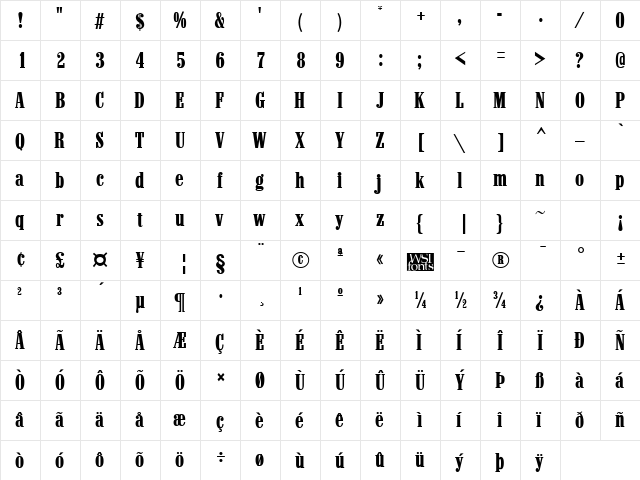
Marlboro Regular
Design Context for Marlboro Typeface
Marlboro takes a measured approach to typography — its balanced proportions and neutral character make it a reliable workhorse for both digital and print work.